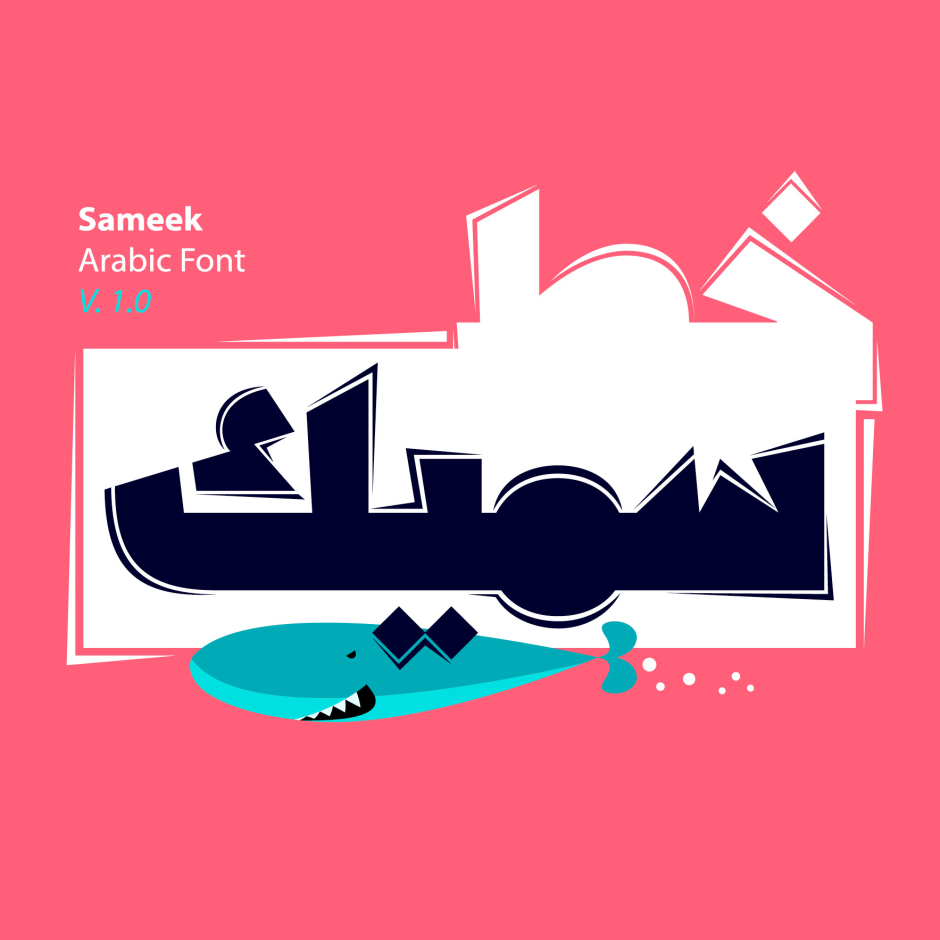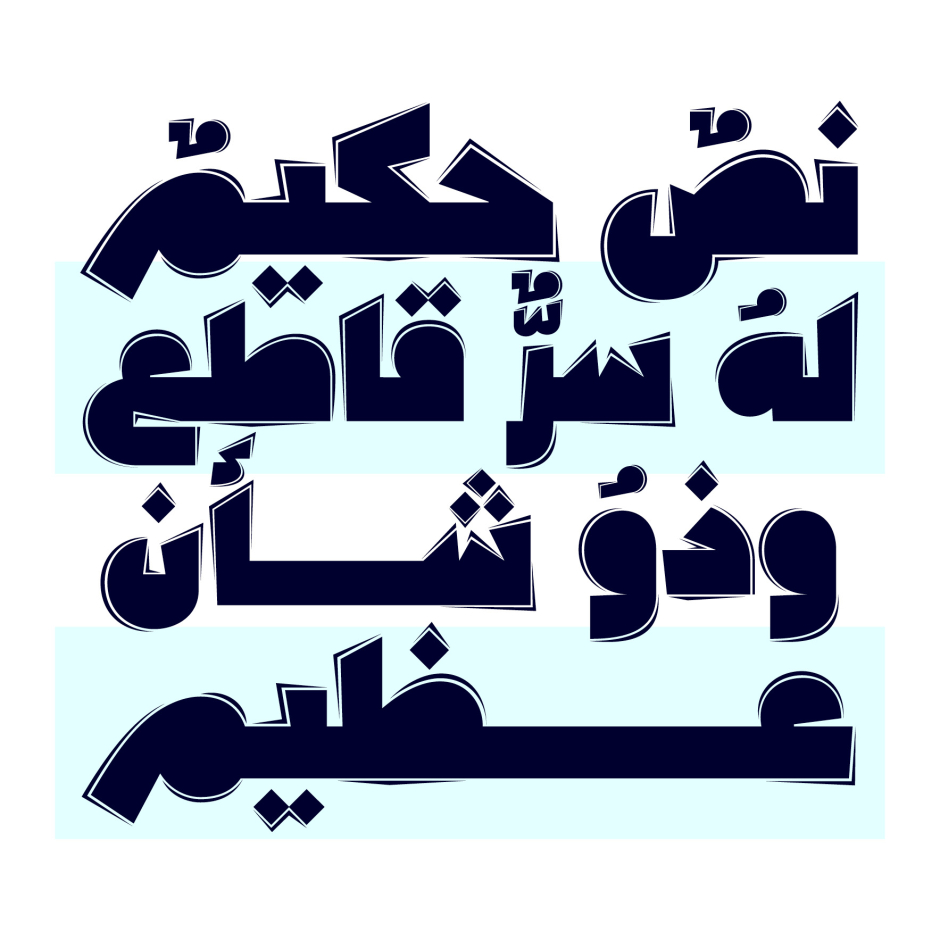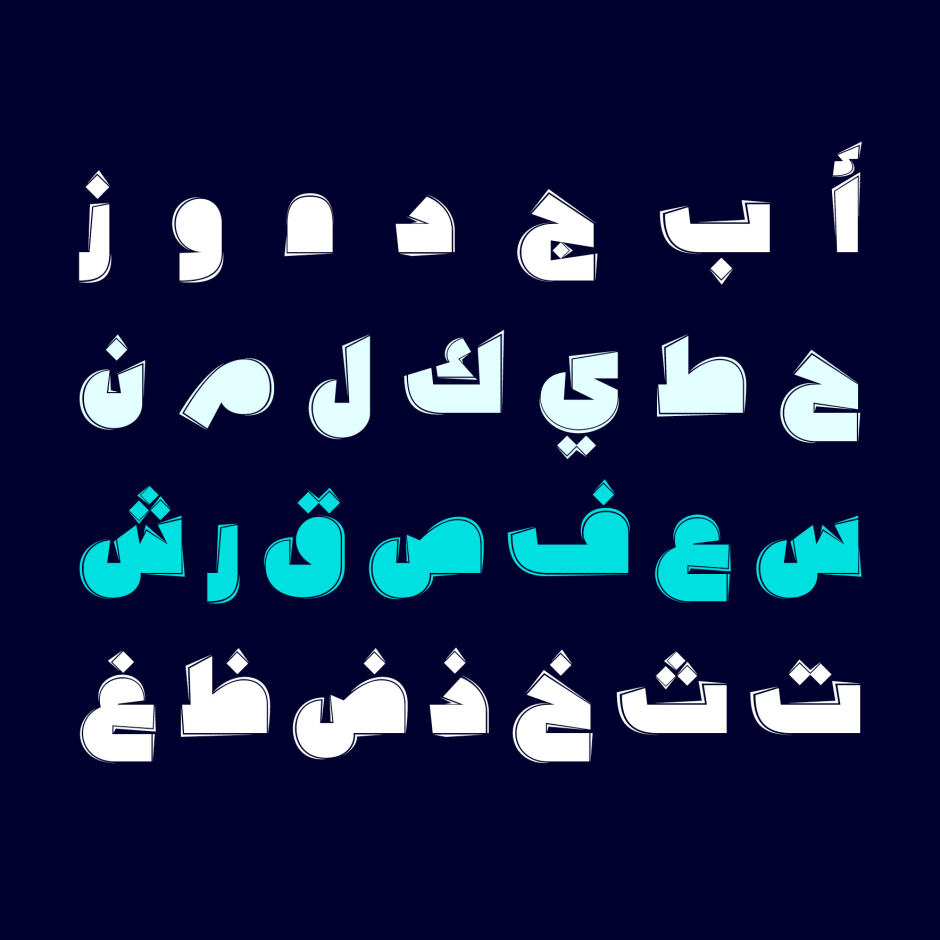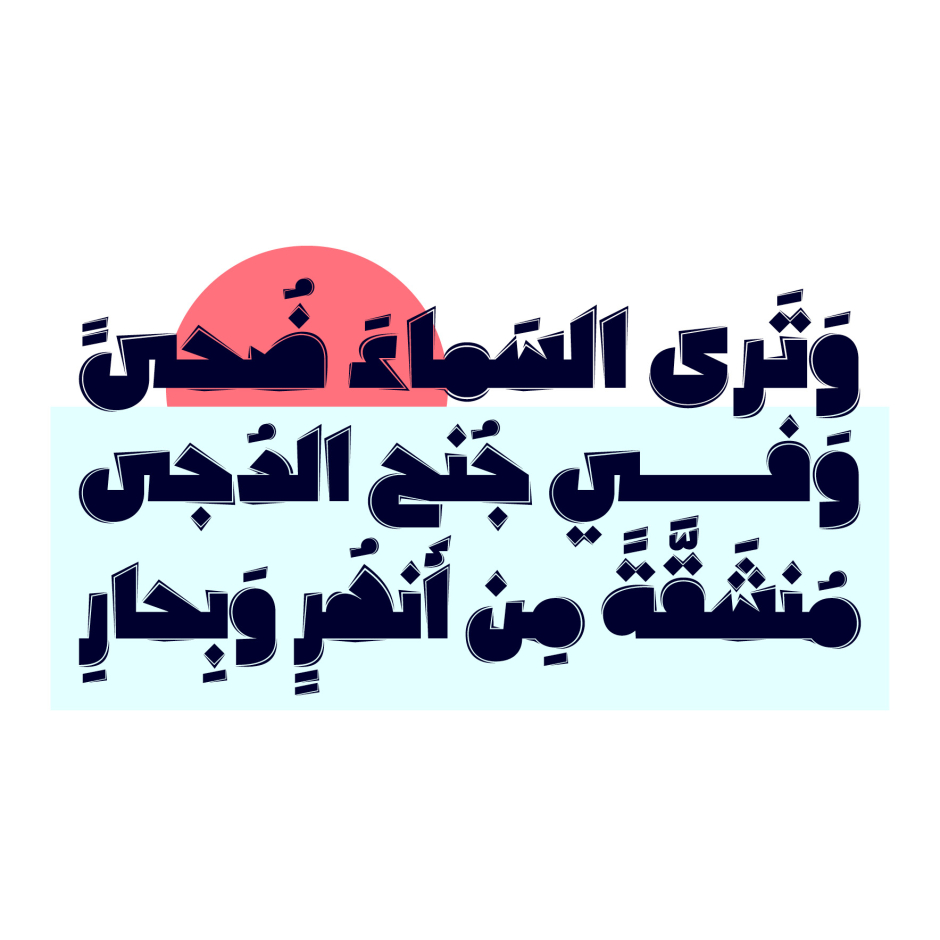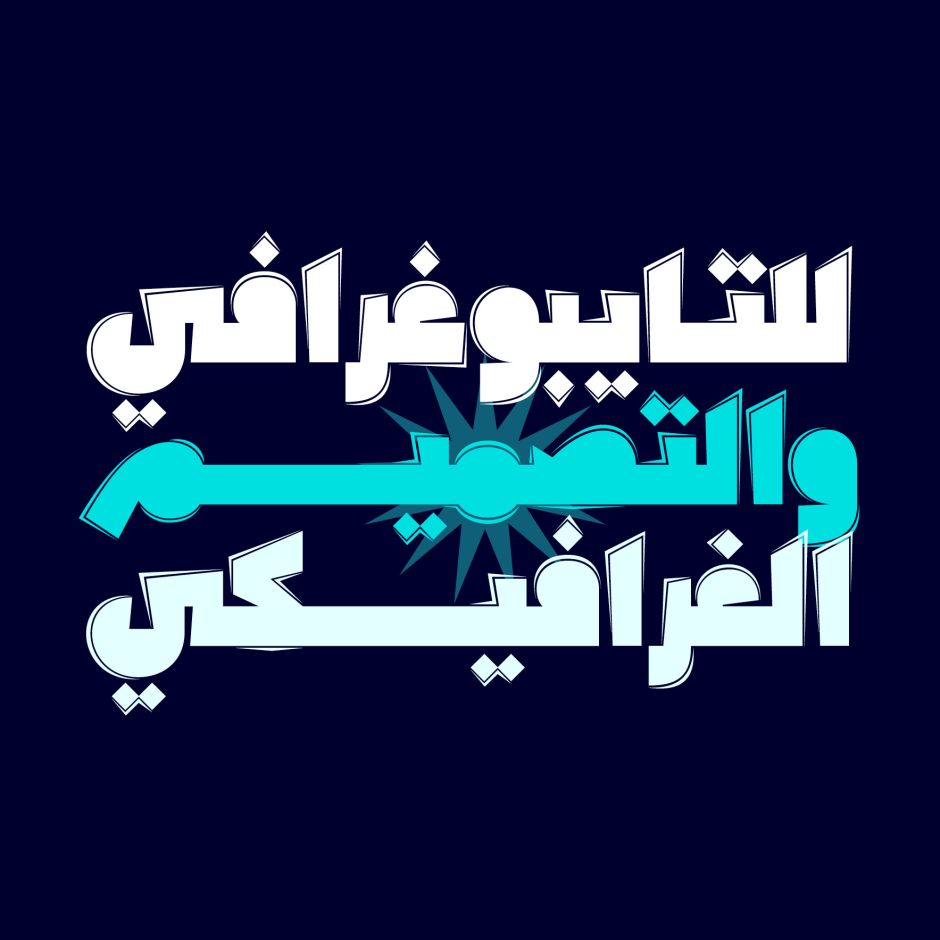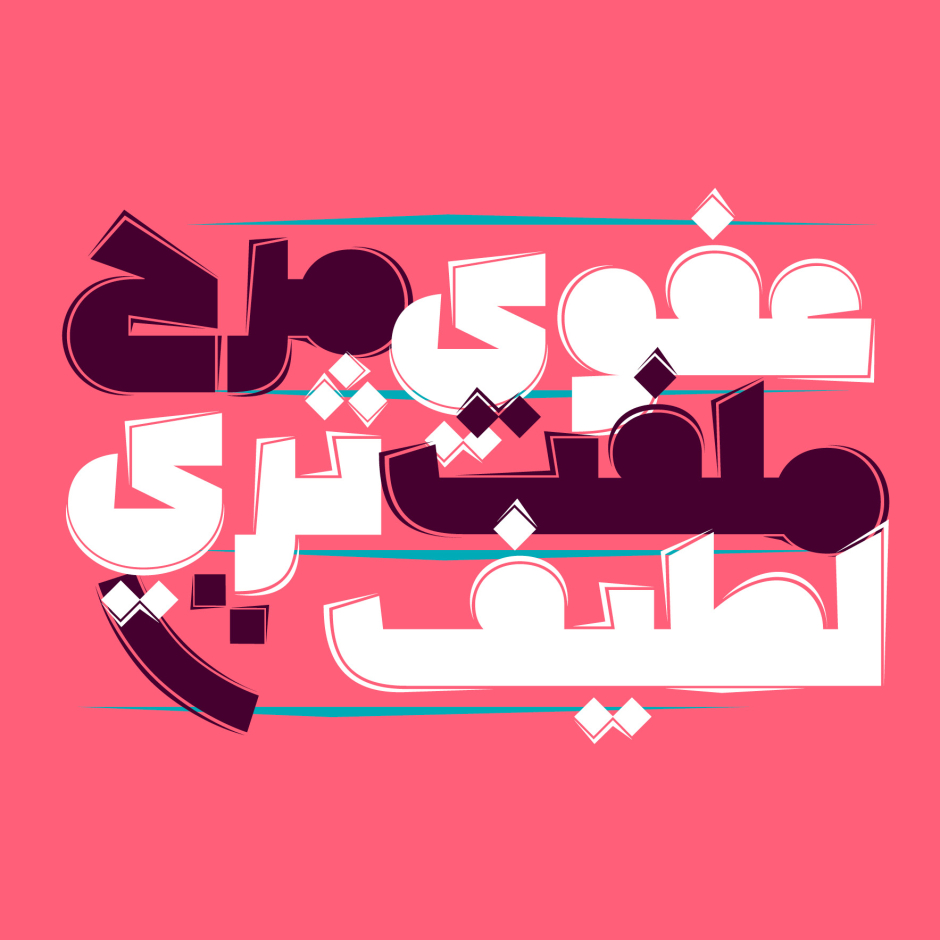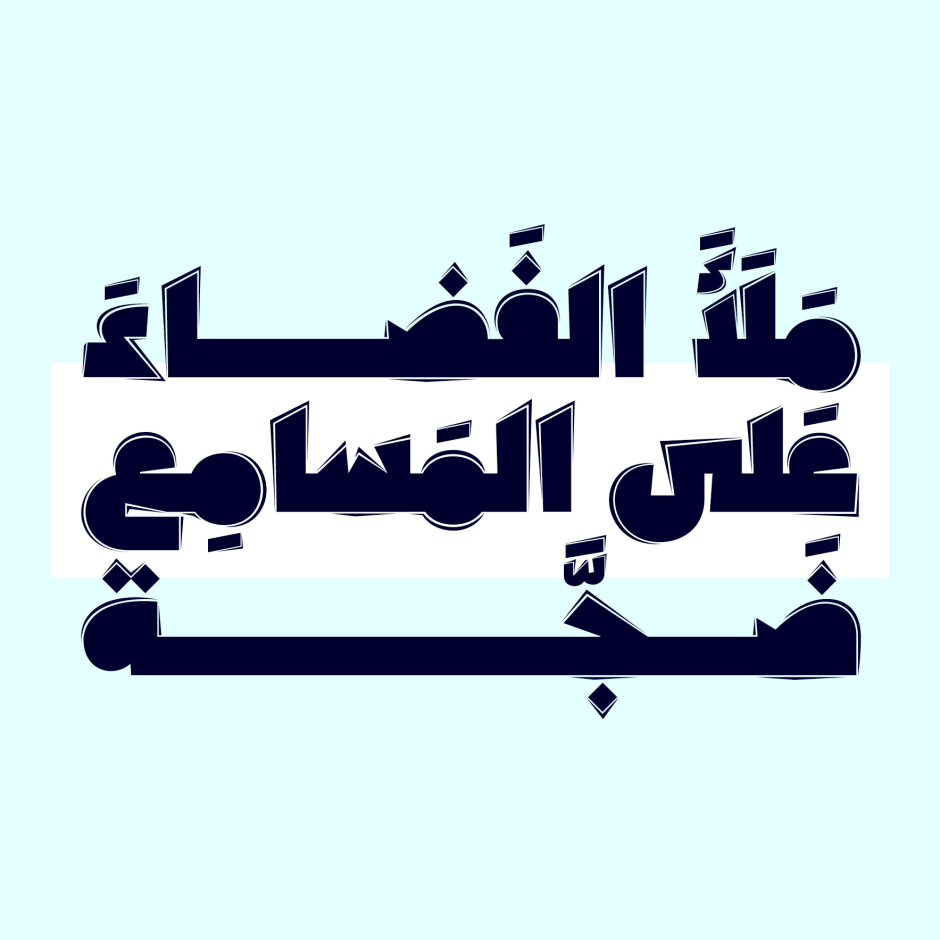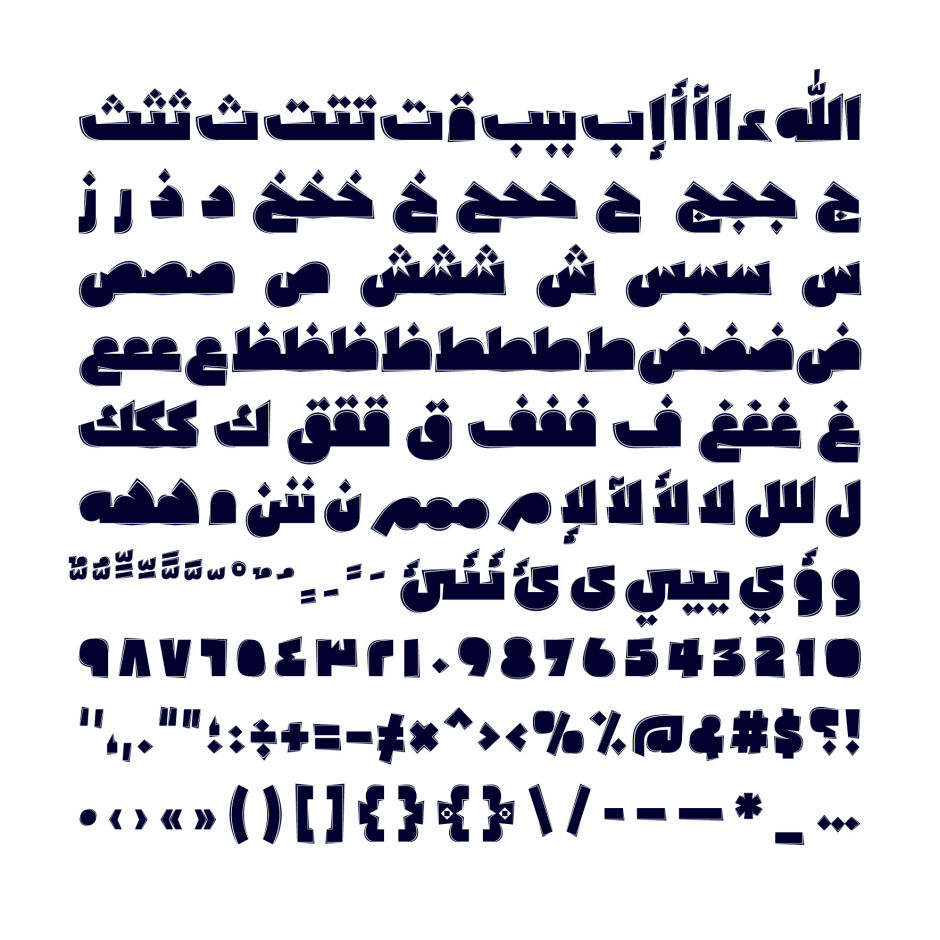
Sameek
Sameek (the Arabic word for 'Thick') is an Arabic display font that features heavy letterform design along with woodcut-like style. Sameek is suitable for all creative projects including , logotype design, branding, web, print and mobile applications. It supports Windows and Mac OS.